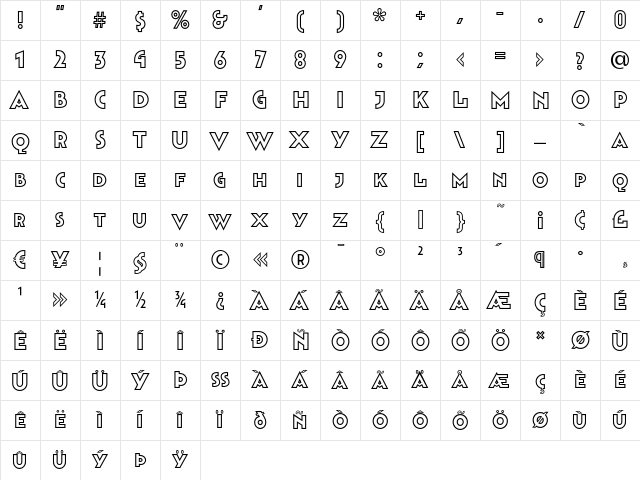
Bahnhof Outline is built around its visual character rather than neutral utility - its distinctive forms are designed to make an impression at display sizes.
Font Pairing: Pair with a clean neutral sans-serif for body copy to let Bahnhof Outline's character lead without overwhelming the composition.
Pro Tip: Use Bahnhof Outline exclusively at display sizes - it was designed to be seen, not read at length. Let a neutral companion handle body copy.